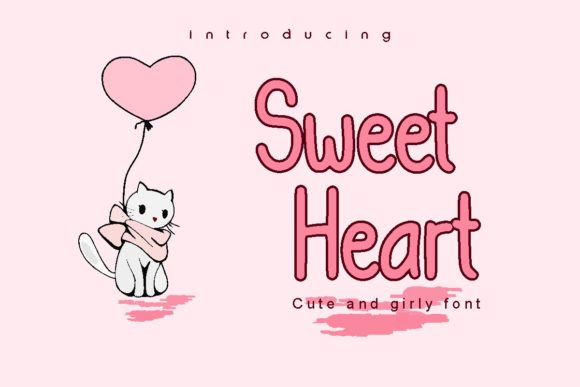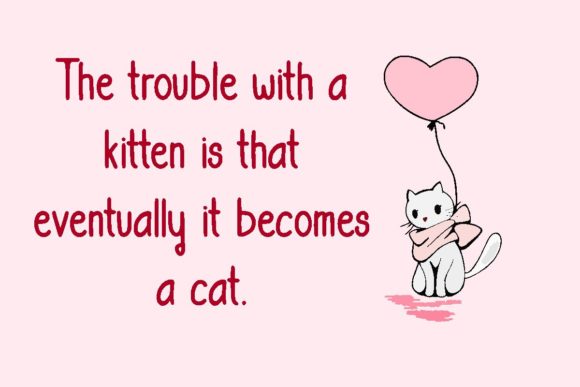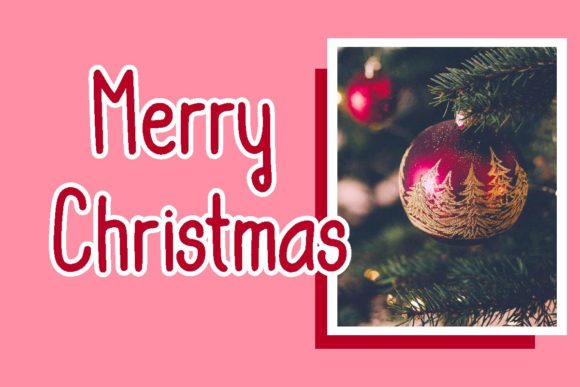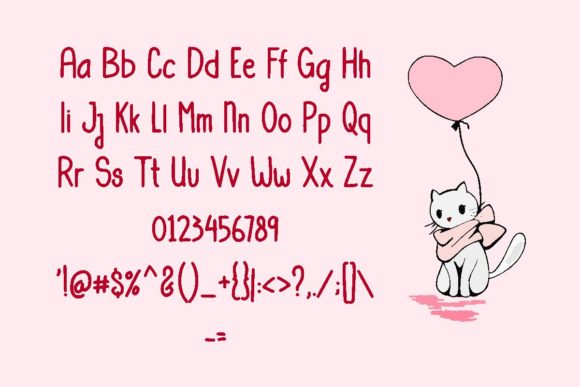
Sweet Heart Font
About Sweet Heart Font
Sweet Heart is a charming and friendly handwritten font that brings a touch of simplicity and warmth to your designs. With its trendy and casual style, this font is perfect for adding a laid-back and approachable vibe to your projects.
The simplicity of Sweet Heart is its key feature. Its clean and legible letterforms make it suitable for a wide range of informal design ideas. Whether you’re working on social media graphics, personal branding, invitations, or any other casual project, Sweet Heart adds a touch of sweetness and friendliness.
The handwritten nature of Sweet Heart adds a personal and authentic feel to your designs. It captures the essence of hand-drawn lettering, evoking a sense of warmth and familiarity. The irregularities and imperfections in the letterforms give the font a unique and charming character.
Sweet Heart is trendy and casual, making it suitable for modern design styles. It effortlessly complements informal and contemporary aesthetics, adding a touch of playfulness and style to your compositions. Use it as the main font or pair it with other typefaces to create visually appealing and harmonious designs.
The legibility of Sweet Heart ensures that your message is clear and easy to read. Its simple and straightforward strokes make it suitable for various sizes and applications. Whether you’re using it for digital designs or print materials, Sweet Heart maintains its readability and impact.
With Sweet Heart, you have a font that exudes a friendly and approachable vibe. Its simplicity and casual style make it suitable for a wide range of informal design ideas. Whether you’re creating social media posts, personal projects, or adding a touch of sweetness to your casual branding, Sweet Heart delivers.
In summary, Sweet Heart is a simple and friendly handwritten font that adds charm and approachability to your designs. Its trendy and casual style makes it a perfect fit for informal design ideas. Embrace the simplicity and sweetness of Sweet Heart to enhance your projects and create a warm and friendly connection with your audience.